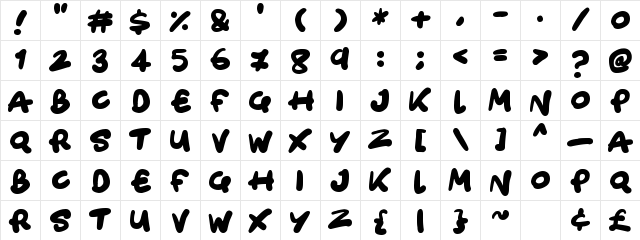
Only Organic Regular
Design Context for Only Organic
Only Organic is a composed and adaptable typeface that performs quietly and consistently across a wide range of design contexts.
Pro Tip: Use Only Organic in both headline and body roles to test its range before committing to a single application.